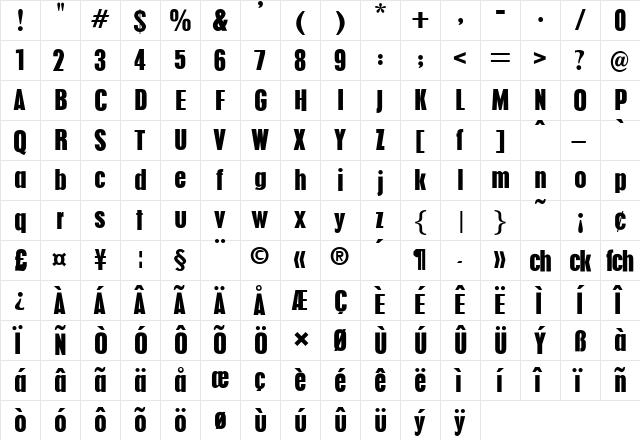
Pilsen Plakat Regular
Design Context for Pilsen Plakat Typeface
Pilsen Plakat takes a measured approach to typography — its balanced proportions and neutral character make it a reliable workhorse for both digital and print work.